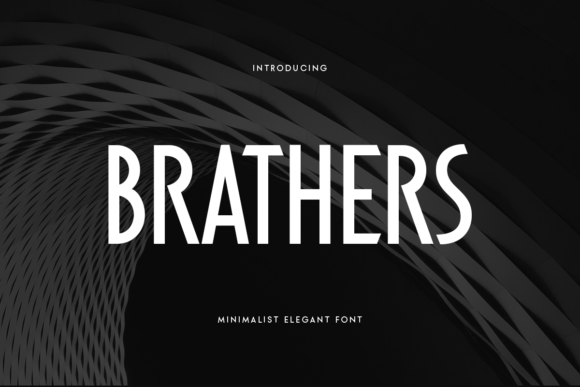
Brathers Font: The Epitome of Modern Sophistication
In the realm of typography, few fonts have managed to capture the essence of modern sophistication as elegantly as Brathers Font. This refined and contemporary typeface has been turning heads with its sleek and slender design, making it an ideal choice for modern branding, elegant headlines, and sleek design projects that require a touch of refinement and sophistication.
Design Characteristics of Brathers Font
Brathers Font is characterized by its clean lines and minimalistic forms, which exude a sense of sophistication and style. The font’s sleek and slender design makes it perfect for projects that require a touch of elegance and refinement. The clean lines and minimalistic forms of Brathers Font are a result of meticulous design and attention to detail, making it a standout in the world of typography.
One of the key features of Brathers Font is its ability to convey a sense of modernity and sophistication. The font’s sleek design and clean lines make it perfect for modern branding, elegant headlines, and sleek design projects. Whether you’re looking to create a stunning logo, a elegant headline, or a sleek design project, Brathers Font is the perfect choice.
Usage Examples of Brathers Font
Brathers Font is a versatile typeface that can be used in a variety of design projects. Here are some examples of how you can use Brathers Font:
- Modern Branding: Brathers Font is perfect for modern branding projects that require a touch of sophistication and elegance. The font’s sleek design and clean lines make it ideal for creating stunning logos, business cards, and letterheads.
- Elegant Headlines: Brathers Font is also perfect for creating elegant headlines for magazines, newspapers, and websites. The font’s sleek design and clean lines make it easy to read and understand, making it perfect for headlines that require a touch of sophistication.
- Sleek Design Projects: Brathers Font is also ideal for sleek design projects that require a touch of refinement and sophistication. Whether you’re looking to create a stunning website, a sleek brochure, or a elegant poster, Brathers Font is the perfect choice.
Typographic Features of Brathers Font
Brathers Font has several typographic features that make it stand out from other fonts. Here are some of the key features:
- Clean Lines: Brathers Font has clean lines that make it easy to read and understand. The font’s clean lines are a result of meticulous design and attention to detail.
- Minimalistic Forms: Brathers Font has minimalistic forms that make it perfect for modern branding, elegant headlines, and sleek design projects.
- Sleek Design: Brathers Font has a sleek design that makes it perfect for projects that require a touch of sophistication and elegance.
Benefits of Using Brathers Font
There are several benefits of using Brathers Font for your design projects. Here are some of the key benefits:
- Sophistication: Brathers Font adds a touch of sophistication and elegance to your design projects.
- Modernity: Brathers Font is perfect for modern branding, elegant headlines, and sleek design projects that require a touch of modernity.
- Readability: Brathers Font is easy to read and understand, making it perfect for headlines, body text, and other design projects.
- Versatility: Brathers Font is a versatile typeface that can be used in a variety of design projects.
Tips for Using Brathers Font
Here are some tips for using Brathers Font:
- Use it for Headlines: Brathers Font is perfect for headlines that require a touch of sophistication and elegance.
- Pair it with Other Fonts: Brathers Font can be paired with other fonts to create a stunning design project.
- Use it for Branding: Brathers Font is perfect for modern branding projects that require a touch of sophistication and elegance.
In conclusion, Brathers Font is a refined and contemporary typeface that is perfect for modern branding, elegant headlines, and sleek design projects. The font’s sleek design, clean lines, and minimalistic forms make it a standout in the world of typography. With its versatility, readability, and sophistication, Brathers Font is an excellent choice for designers looking to add a touch of elegance and refinement to their design projects.